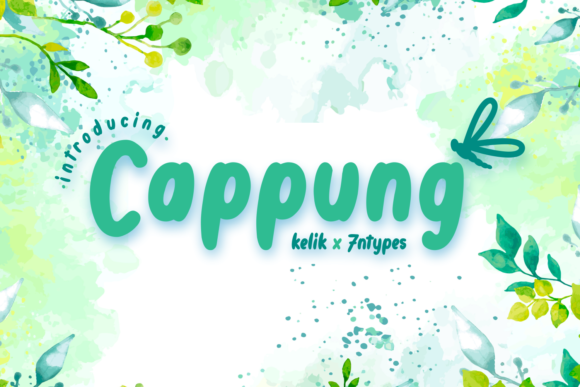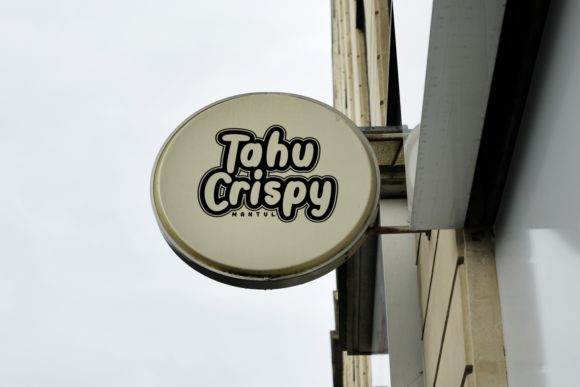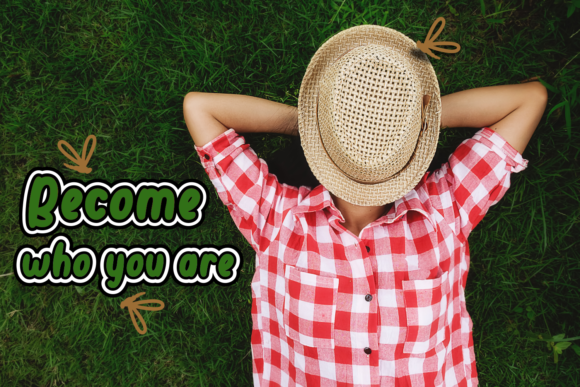
Cappung Font
About Cappung Font
Cappung is a friendly and chunky handwritten font with a simple vibe. It will add a casual feel to any design project!